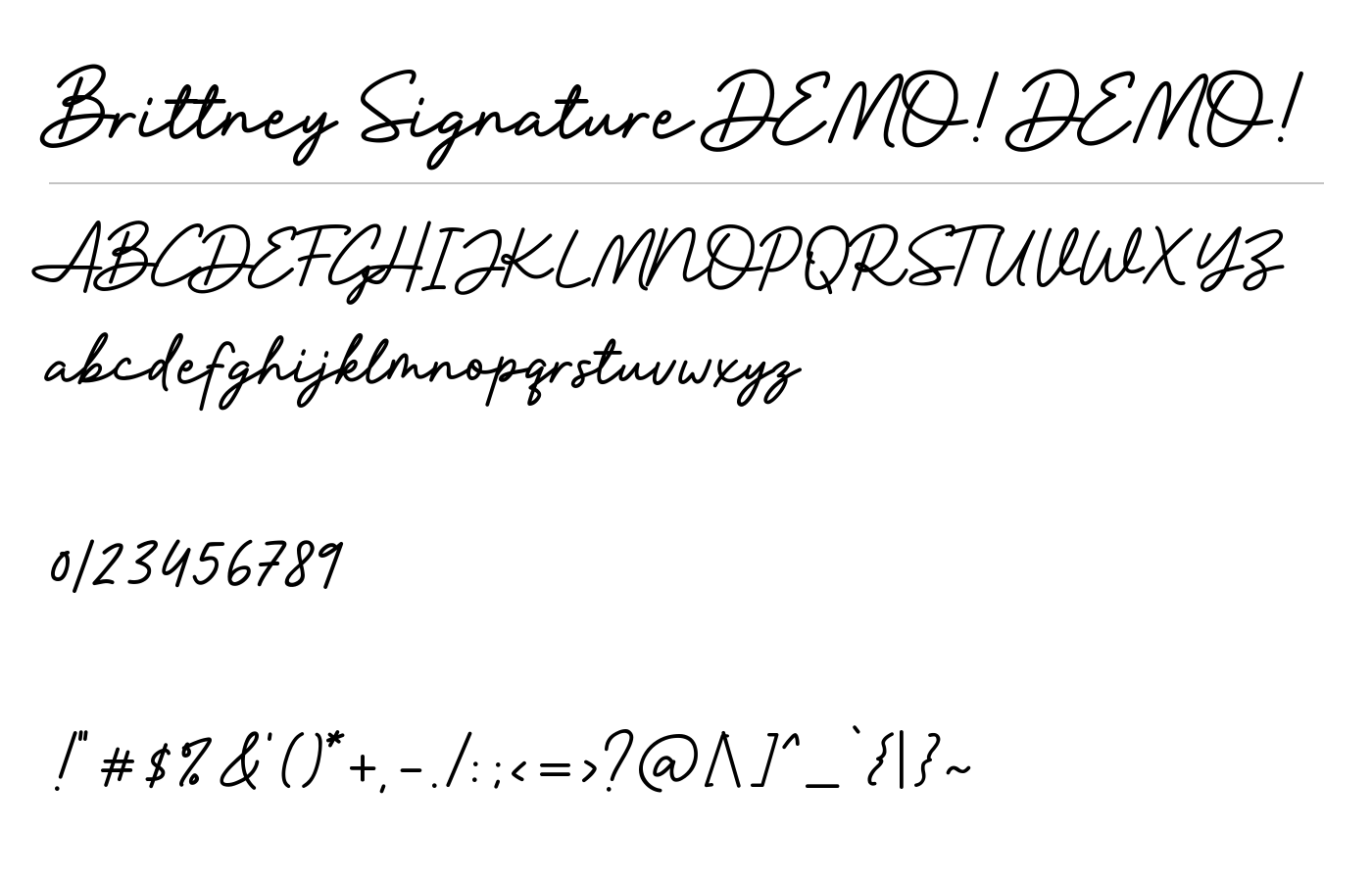
Brittney Signature DEMO! is a delicate, handwritten script font that captures the elegance and flow of natural penmanship. Its light weight, smooth strokes, and slightly irregular letterforms create a casual yet polished feel, making it ideal for personal branding, invitations, and stylish logos. This font’s airy and approachable style works well where a warm, authentic, and creative touch is needed.
Brittney Signature DEMO! Font
About Brittney Signature DEMO! Font
| Designer | Jimtype Studio |